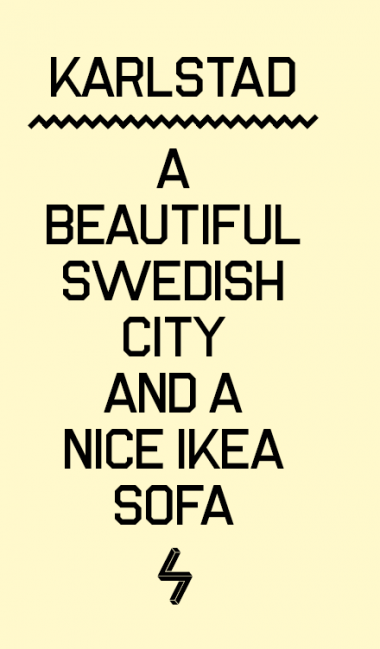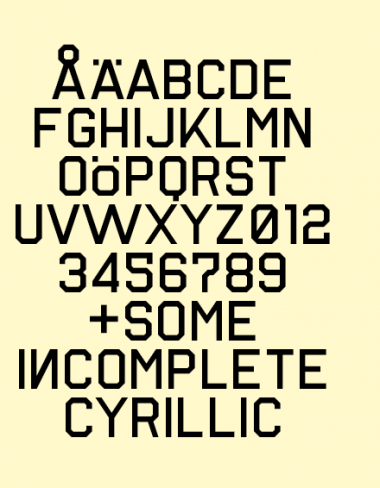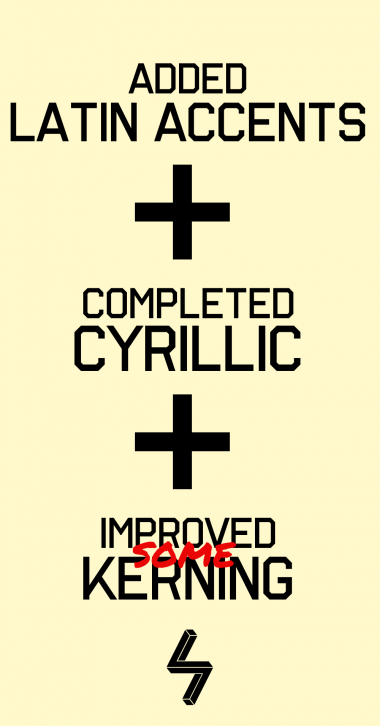
Karlstad
Isaac González (1saac)
Added Cyrillic, latin accents and improved some kerning
Your cyrillic zhe looks a bit sad. Also I think the Q could use a bigger tail. Good job so far! 10+fav
@winty5: Oh shit, I forgot to put the BETA tag. Anyway these cyrillic characters are horrible ;)
YAAAAAAAAAAY! I'll start working on accents right now!!!
...maybe make Ó and Ò more distinguishable :P
Nice! You still haven't fixed the Ò/ò yet... (and maybe there's a little kerning problem between cyrillic lowercase к & л)
Maybe add lowercase?
@H1K765 Whoops! I hadn't opened this page from a long time.
I'm not going to add lowercase :( I'm quite busy with two fonts I'm making at once
Poor Cyrillic... Will you fix it?
why is lowercase в б?